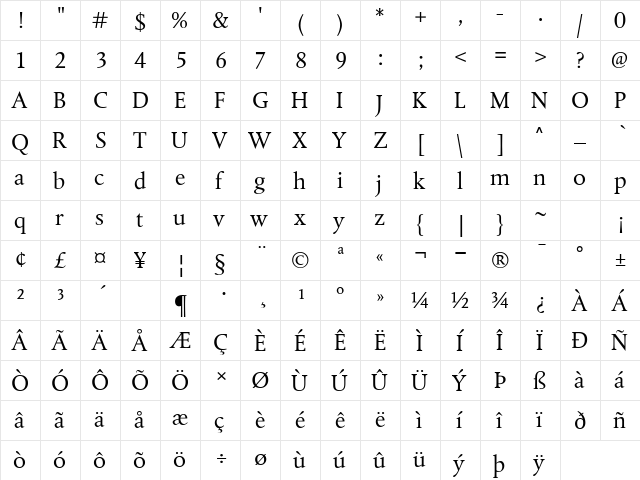
Albertina Dtl Regular Regular
Design Context for Albertina Dtl Regular Typeface
Albertina Dtl Regular takes a measured approach to typography — its balanced proportions and neutral character make it a reliable workhorse for both digital and print work.